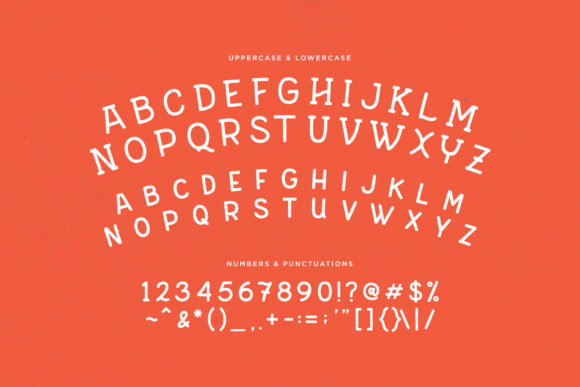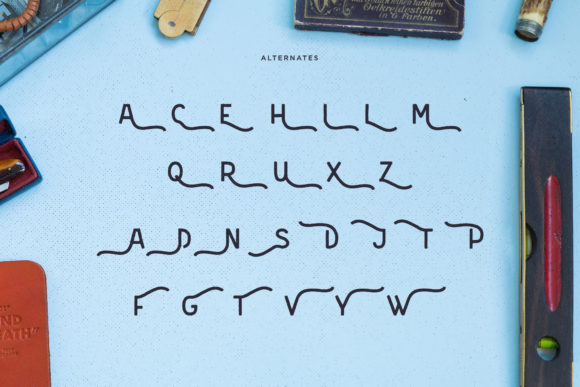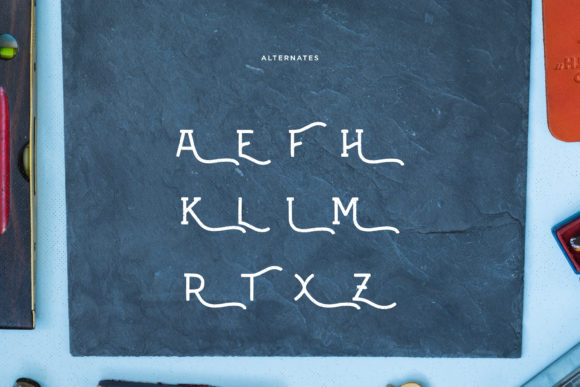
Introduction to Merfolk Font
Merfolk is a vintage display font with fascinating characters.
It is perfectly suited for a wide variety of projects .
Why Choose Merfolk Font?
Merfolk Font offers exceptional quality and versatility, making it a valuable addition to your design toolkit. Whether you’re creating for personal projects or commercial use, Merfolk Font delivers professional results.